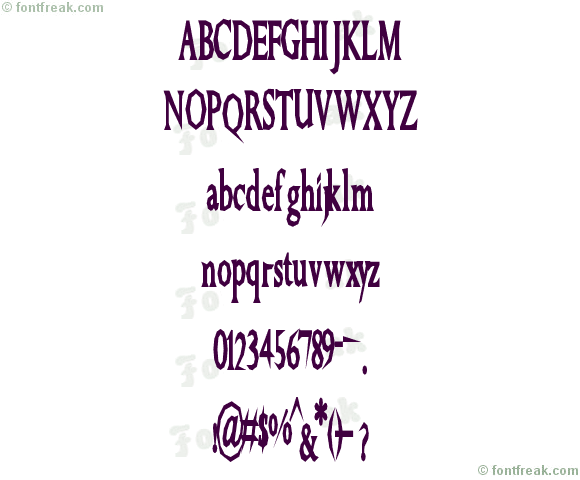
GreatFarmer
About GreatFarmer
GreatFarmer by Xerographer Fonts is a striking serif typeface that perfectly blends elegance with a rustic charm. Released in 2012, this font showcases a unique balance of traditional and modern design elements, making it an excellent choice for various creative projects. The strokes are bold and well-defined, featuring a moderate contrast that enhances legibility while adding a touch of sophistication. The spacing is thoughtfully crafted, ensuring that each letter stands out without compromising on harmony.
The GreatFarmer font is particularly suited for a wide array of applications, including wedding invitations where its refined appearance can add a touch of class, movie posters that require a captivating headline, and restaurant menus seeking to convey a warm, inviting atmosphere. Additionally, it can enhance branding for small businesses, especially those in the artisanal or lifestyle sectors, by infusing their materials with personality. Content creators will also find GreatFarmer invaluable for blogs and social media graphics, where eye-catching typography is essential.
Targeting graphic designers, small business owners, and content creators alike, GreatFarmer offers versatility and style in one package. Its unique character set allows for creative expression while maintaining a professional appearance.
What truly sets the GreatFarmer font apart is its ability to evoke a sense of nostalgia while remaining contemporary. This blend of timeless elegance and modern appeal makes it a compelling choice for anyone looking to elevate their design projects. With the GreatFarmer font free download, you can easily incorporate this distinctive typeface into your work, allowing you to create materials that resonate with your audience and leave a lasting impression.